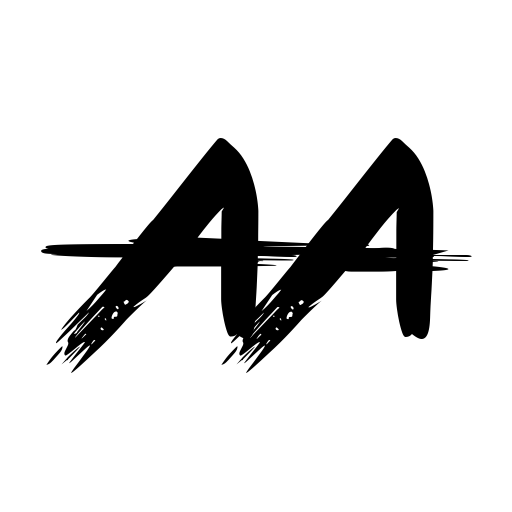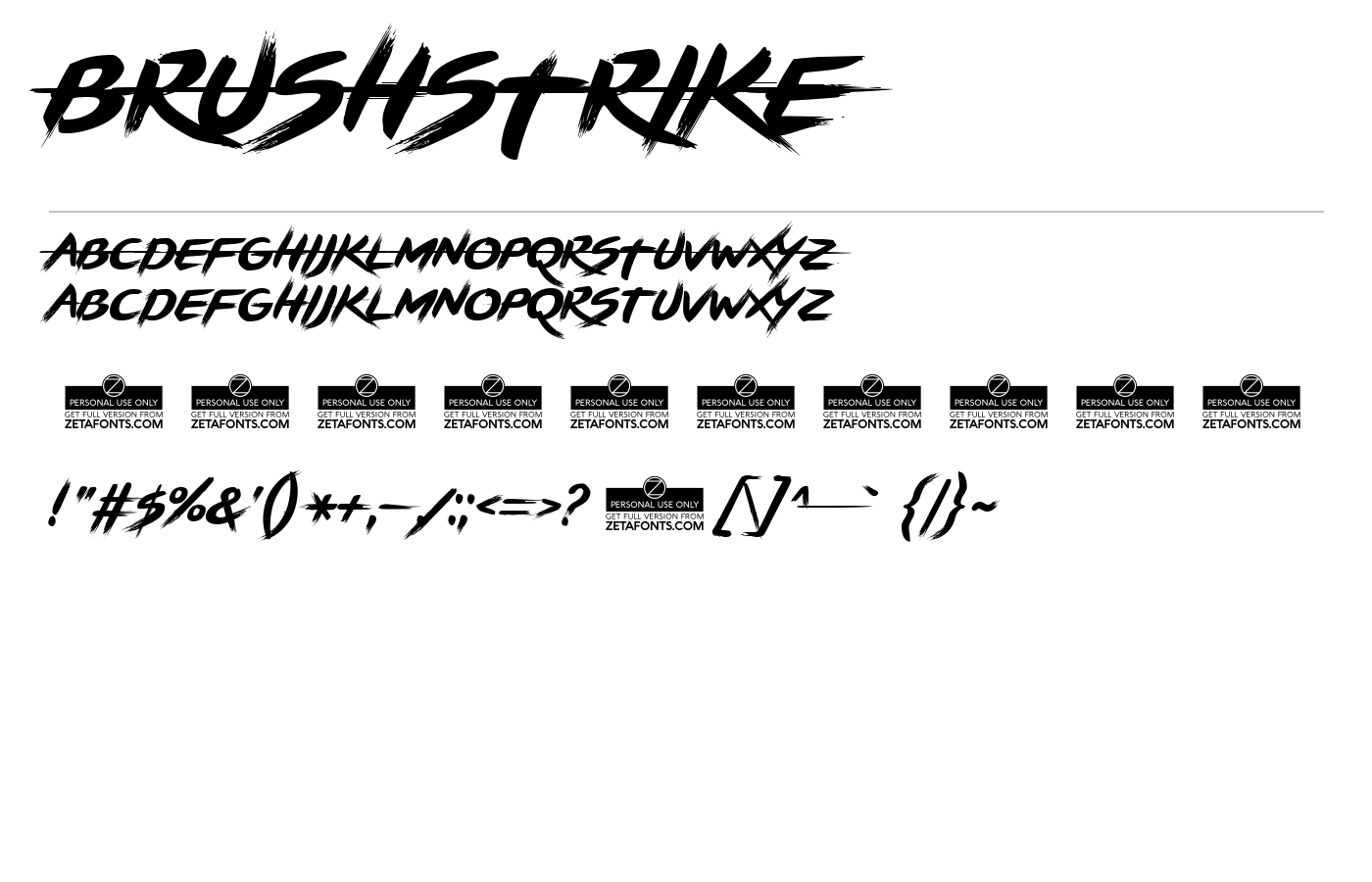
Brushstrike is a bold, energetic brush script font with a dynamic, hand-painted feel created by rough, textured strokes and sharp edges. Its expressive, slightly condensed letterforms convey motion and intensity, making it perfect for striking headlines, logos, and creative projects that seek a youthful, rebellious, or artistic vibe. This font works best in designs that want to capture attention with a raw, authentic, and handcrafted style.
BRUSHSTRIKE Font
About BRUSHSTRIKE Font
| Font family | BRUSHSTRIKE Font |
| Designer | Francesco Canovaro |